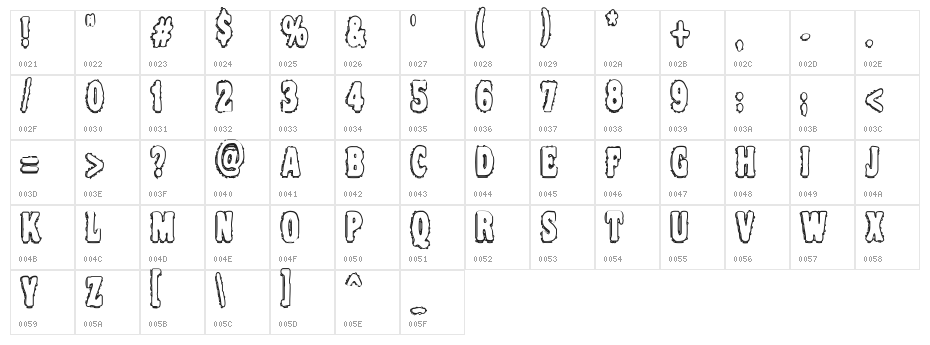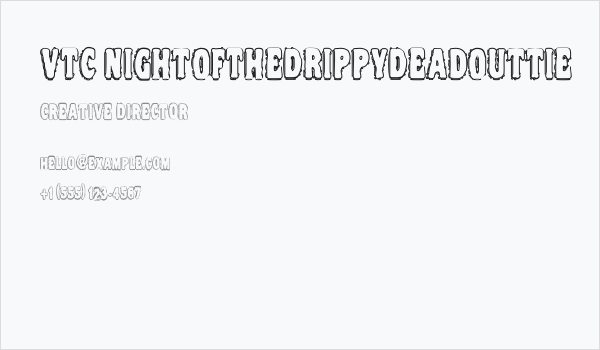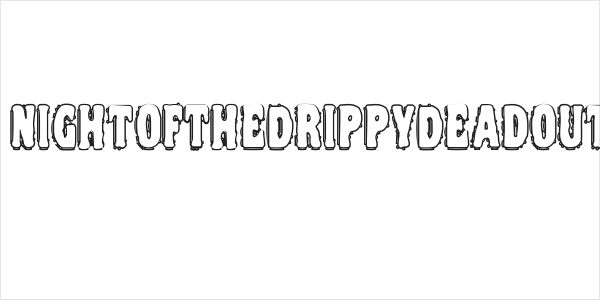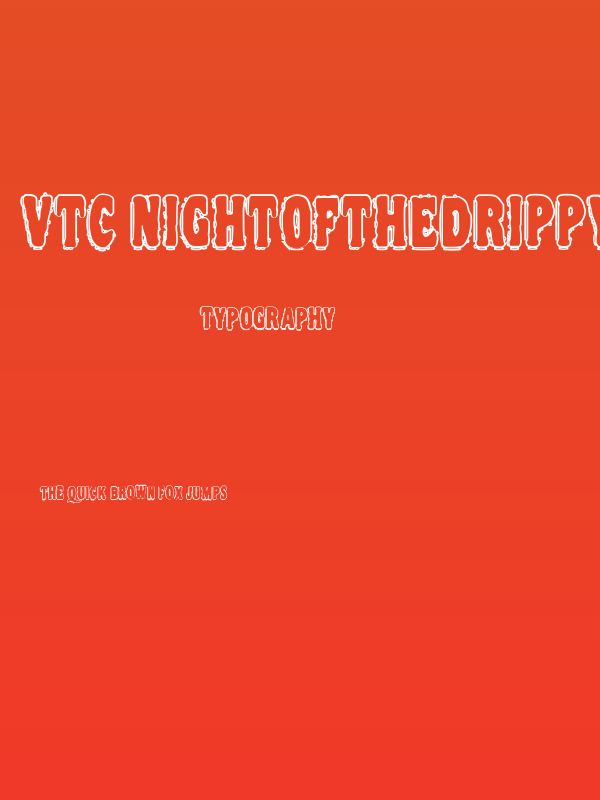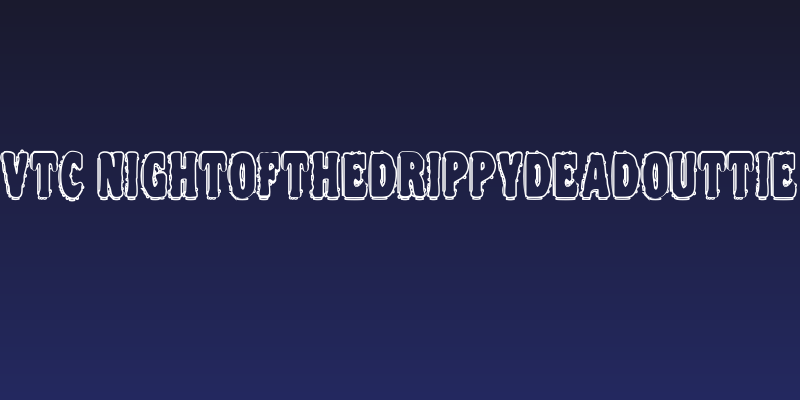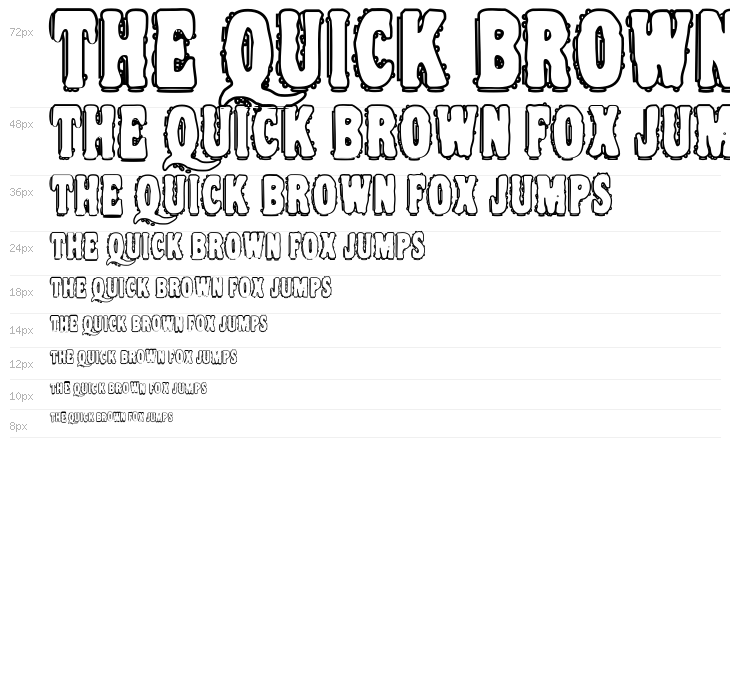
VTC NightOfTheDrippyDeadOuttie Font
VTC NightOfTheDrippyDeadOuttie Description
This font features a playful and spooky design, with each character appearing as if it is dripping or melting. The bold, cartoonish style is reminiscent of classic horror themes, making it ideal for Halloween or other eerie occasions. The letters are outlined with a thick black border, enhancing their visibility and adding to the dramatic effect. The overall appearance is both fun and slightly unsettling, perfect for capturing attention in themed projects.